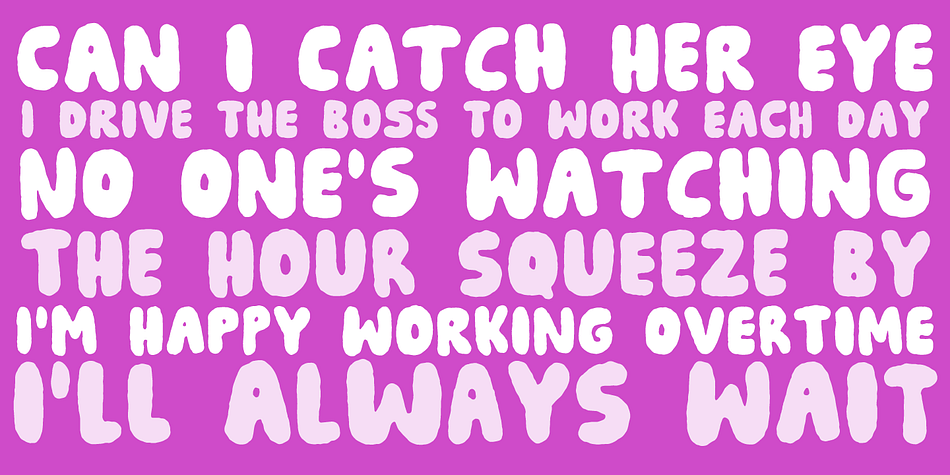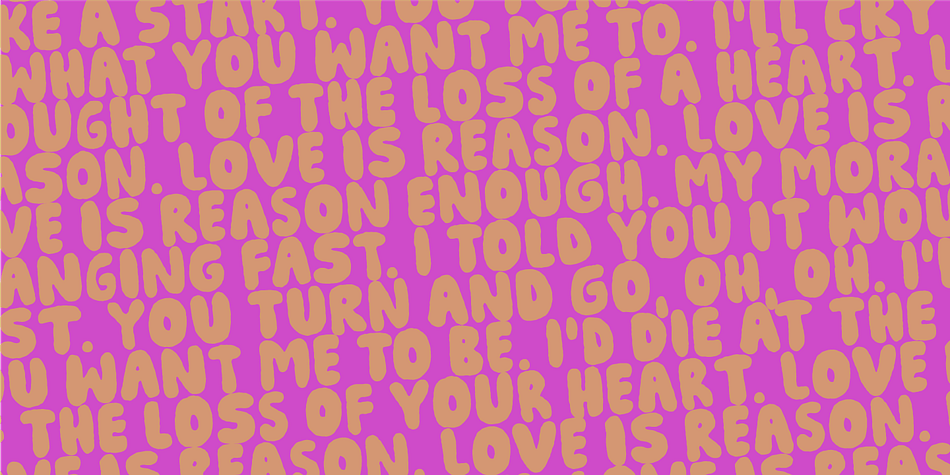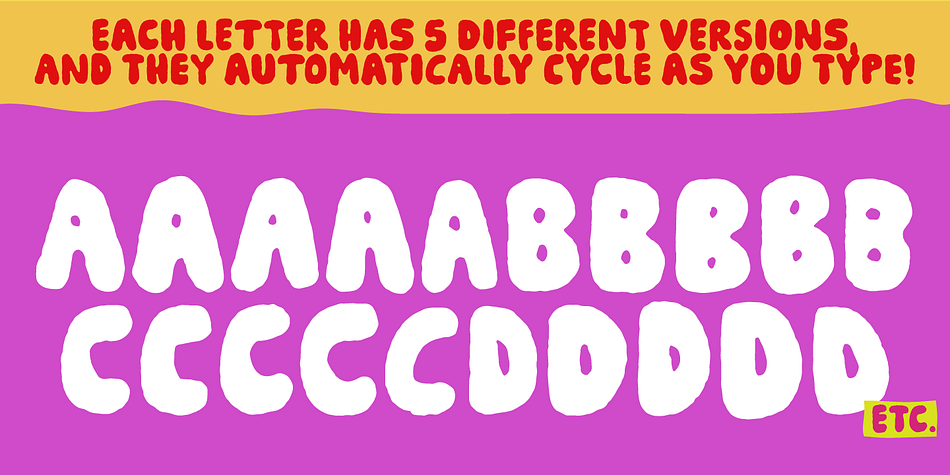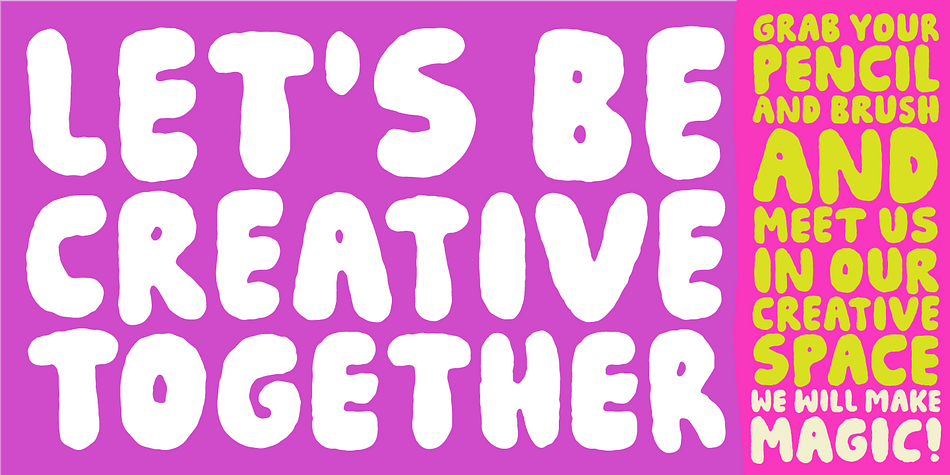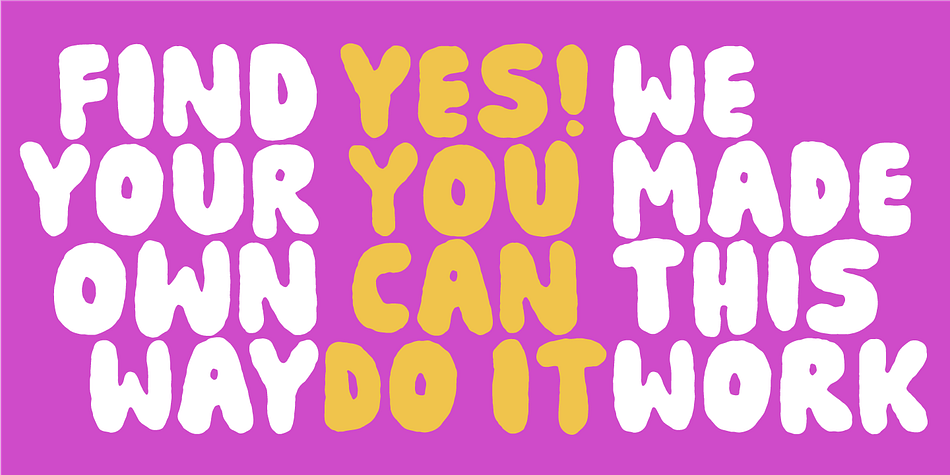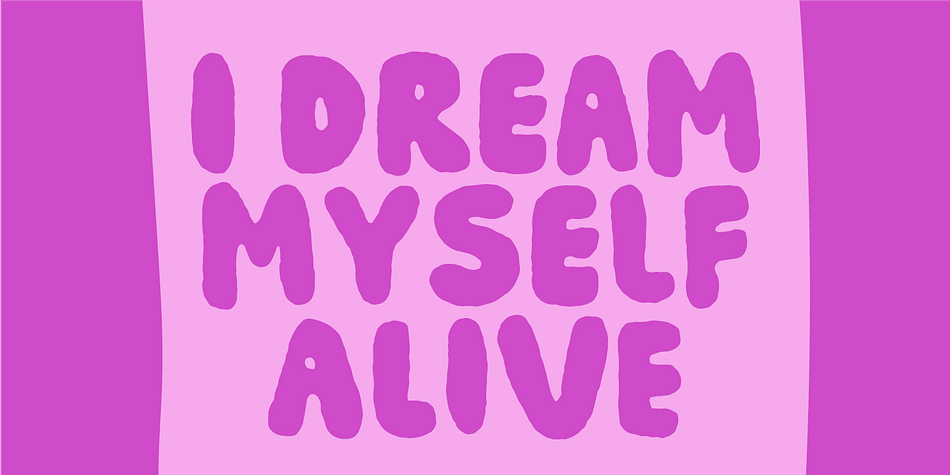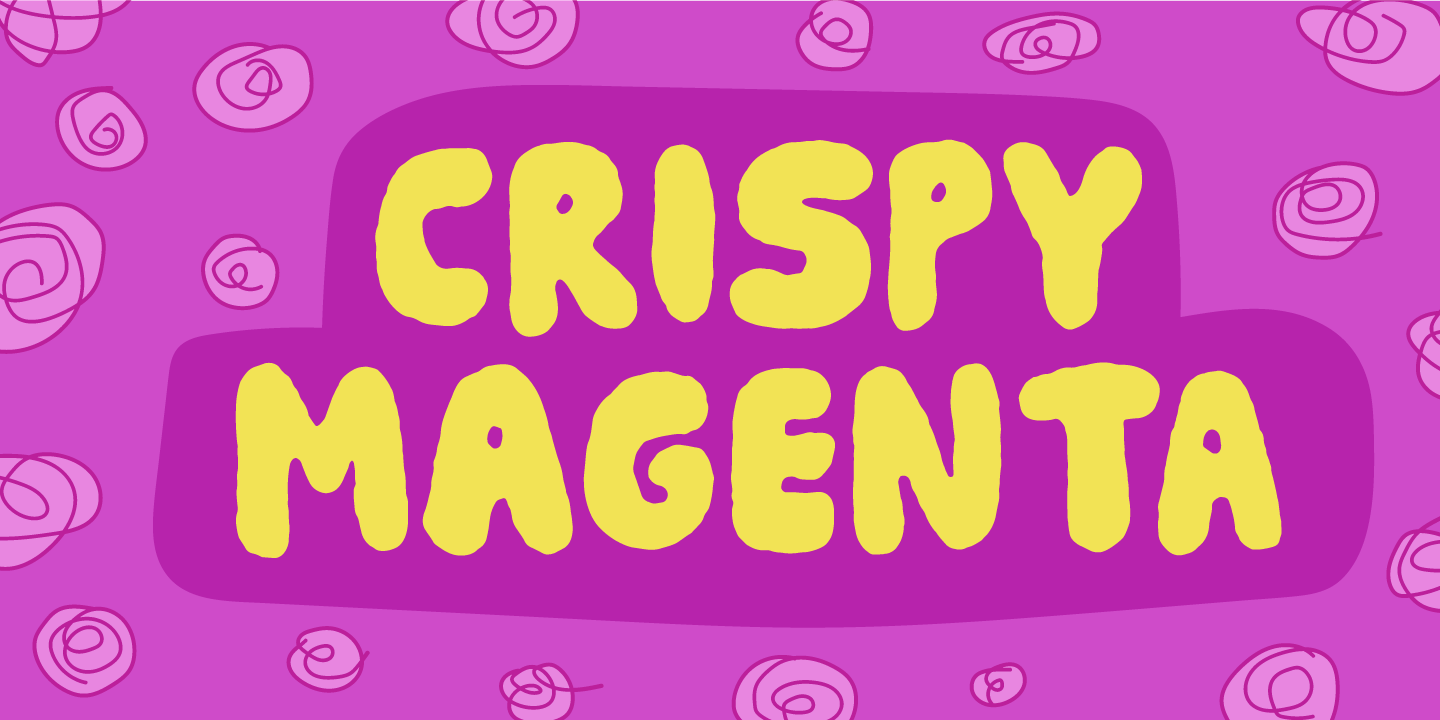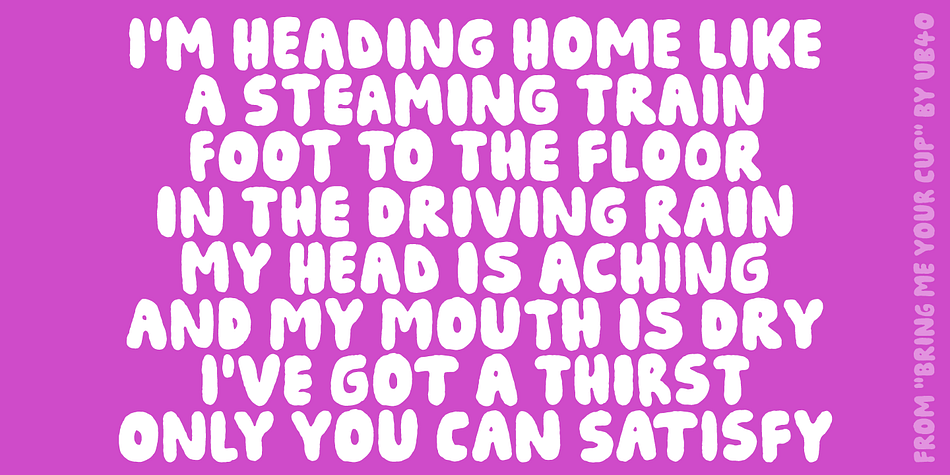
Crispy Magenta
Designed by Jakob Fischer, Crispy Magenta is a hand display font family. This typeface has two styles and was published by Bogstav.
Sweet crispy and crunchy lines, clear and obvious handmade letters! What’s not to like?!
If you need an organic and dynamic input to your product, Crispy Magenta could be the game changer.